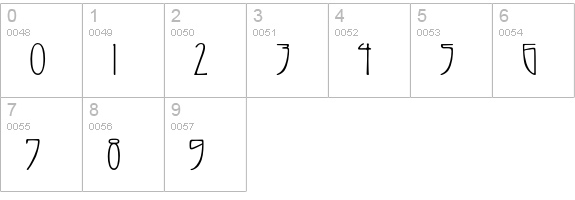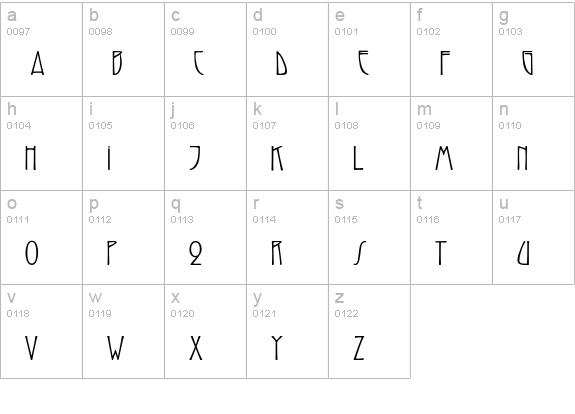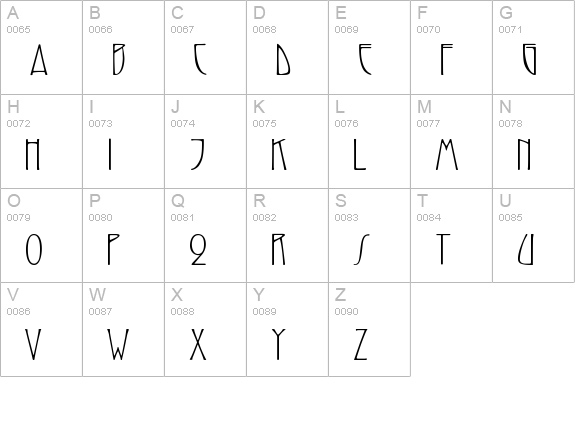
Shrifteen Font Details
Shrifteen is a beautifully crafted font that combines elegance with a touch of modernity. Its sleek and sophisticated design makes it perfect for a wide range of projects, from branding and logos to invitations and headlines. With its clean lines and subtle curves, Shrifteen exudes a sense of professionalism and refinement. What sets Shrifteen apart is not only its impeccable design, but also the fact that it is available for free. Yes, you read that right - this stunning font can be downloaded at no cost from FontsMarket.com. Whether you are a designer on a tight budget or simply looking to add a touch of elegance to your personal projects, Shrifteen is the perfect choice. With its extensive character set and versatile letterforms, Shrifteen offers endless possibilities for creative expression. Its legibility and readability ensure that your message will be conveyed with clarity, while its unique style adds a touch of sophistication and distinction. Whether you are working on a professional project or simply want to elevate your personal designs, Shrifteen is the font that will take your work to the next level. Don't miss out on this incredible opportunity - download Shrifteen for free at FontsMarket.com and start creating stunning designs today.